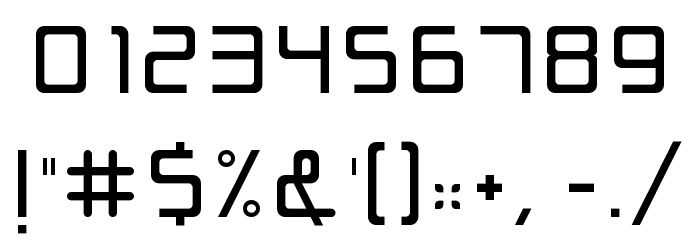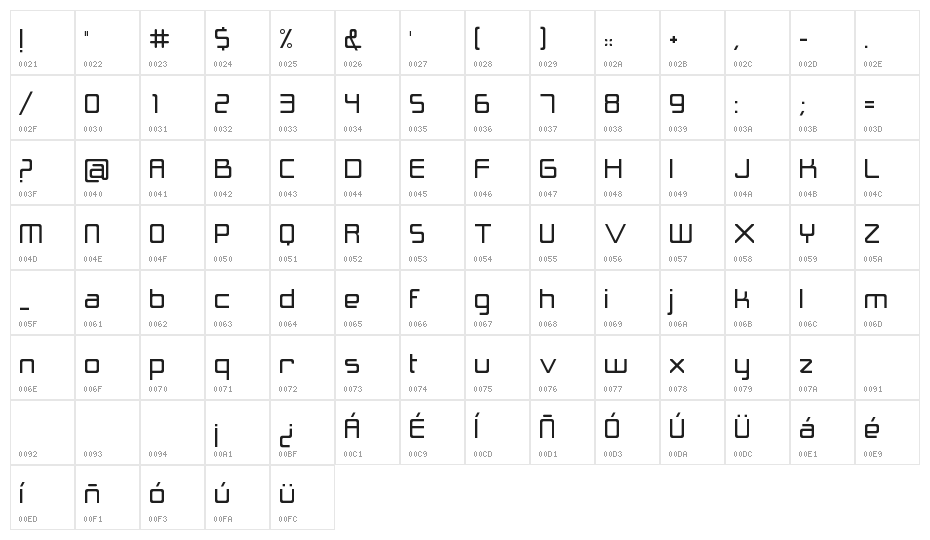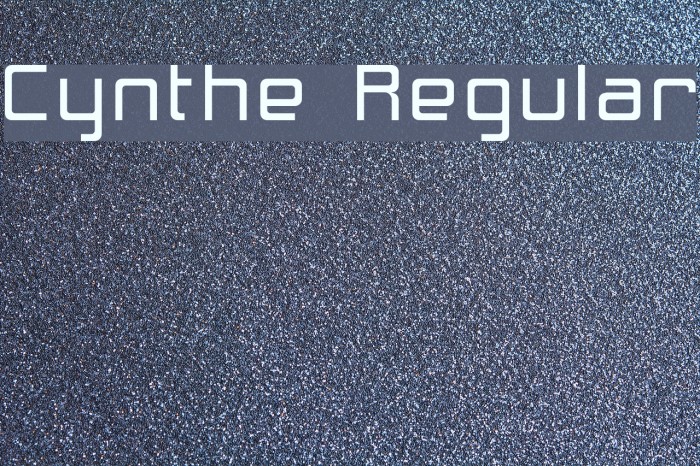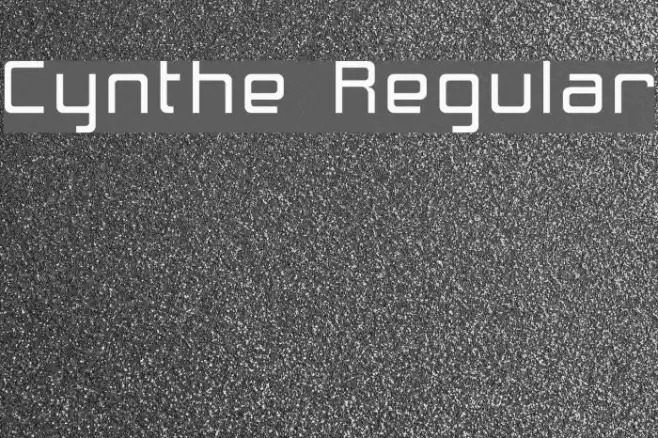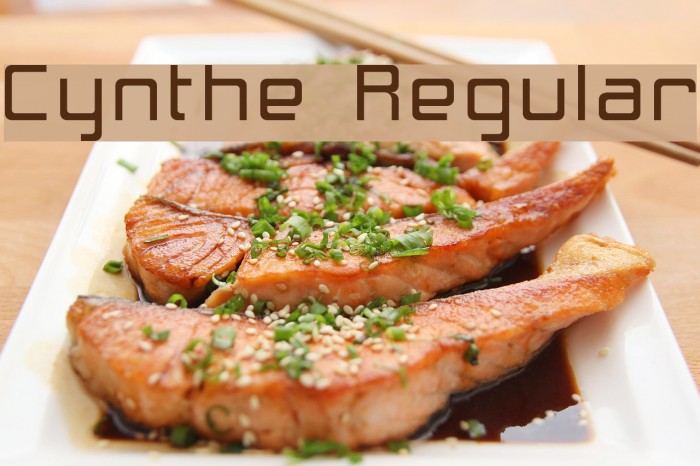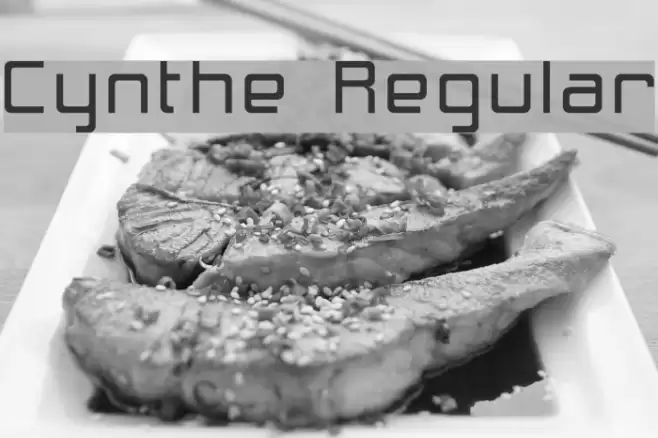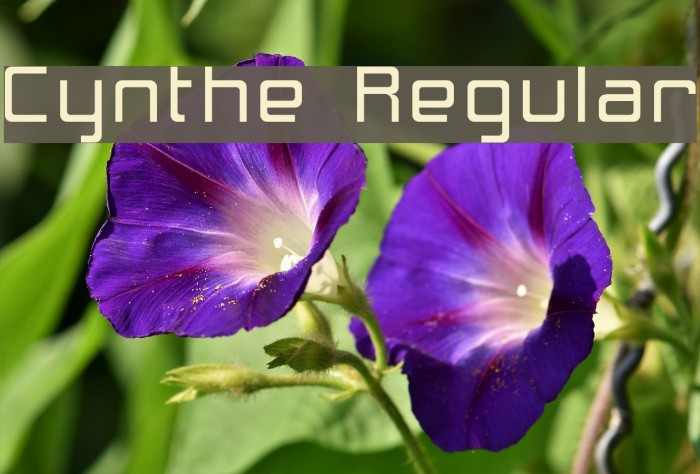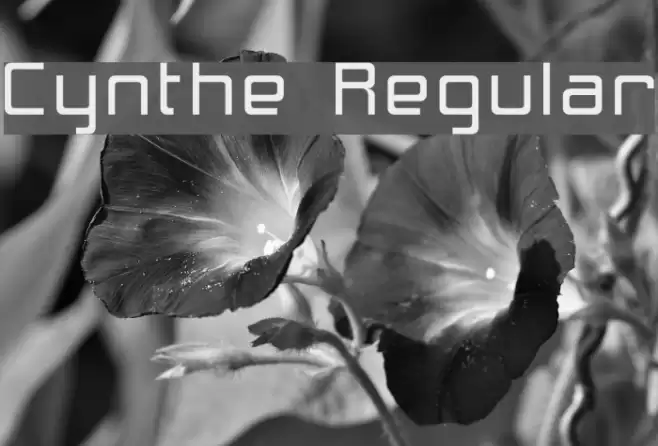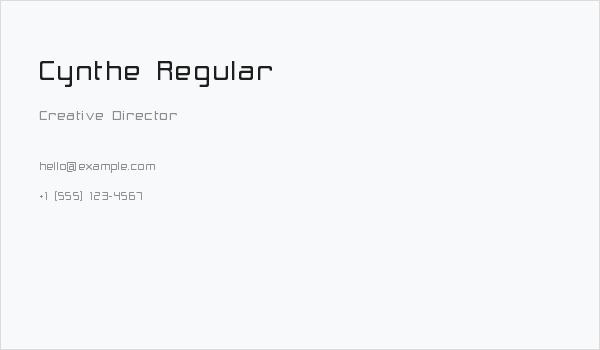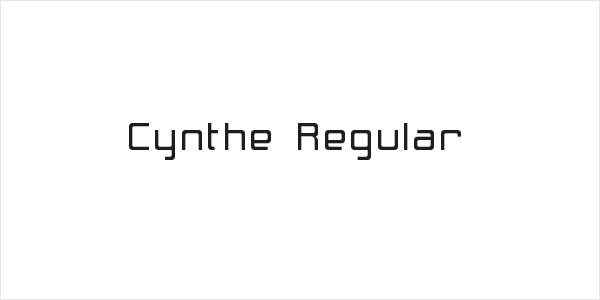
Cynthe Regular Font
Cynthe Regular Description
This font features a modern and geometric design with clean lines and a structured appearance. The characters are uniform in width, giving it a monospaced feel, although it is not strictly monospaced. The uppercase letters are bold and prominent, while the lowercase letters maintain a consistent style with slightly rounded edges, adding a touch of softness to the overall look. The numerals are clear and easy to read, matching the style of the alphabetic characters. Special characters are well-defined, maintaining the geometric theme. This font is versatile, suitable for both digital and print media, and can be used in various design projects that require a contemporary and sleek aesthetic.
| Use Case | Headlines, Logos, User Interfaces |
| Proposed Projects | Ideal for tech branding, user interfaces, digital media, and modern print designs. |